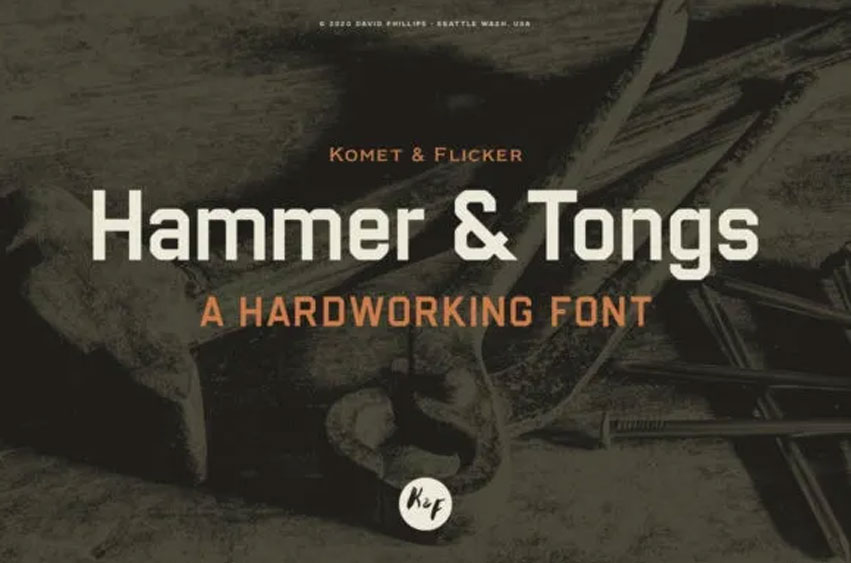
Hammer & Tongs Font
Hammer & Tongs Font is a cool and bold display font. It will make each of your techno designs look modern and futuristic.
Add it confidently to your projects, and you will love the results.